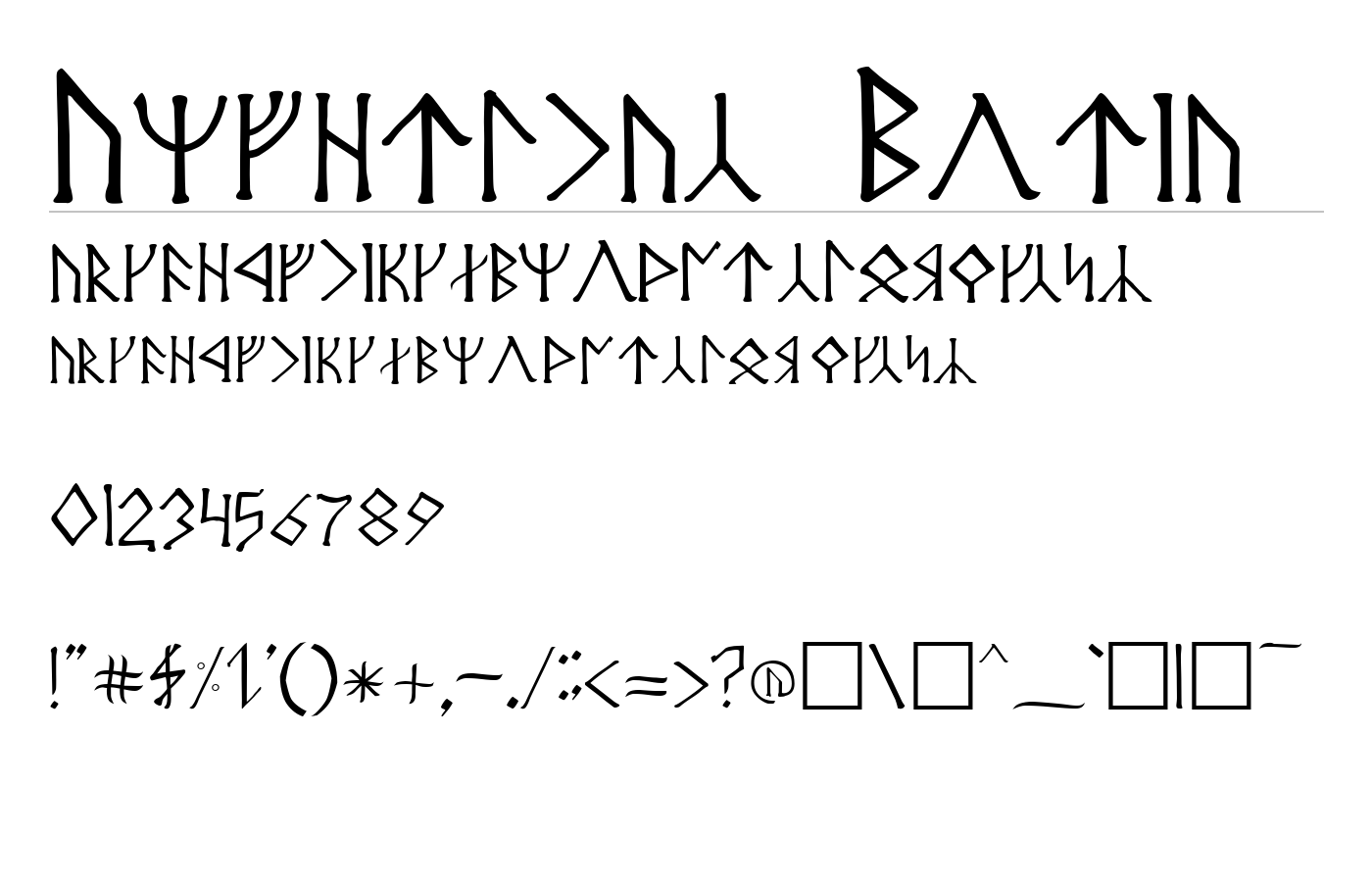
Angerthas Moria is a decorative, rune-inspired font that features sharp, angular lines with a hand-drawn, ancient feel. Its unique letterforms evoke a mystical, fantasy atmosphere, making it ideal for themed projects like games, posters, and fantasy branding. This font works best in display settings where its distinctive style can capture attention and convey a sense of mystery and legend.
Angerthas Moria Font
About Angerthas Moria Font